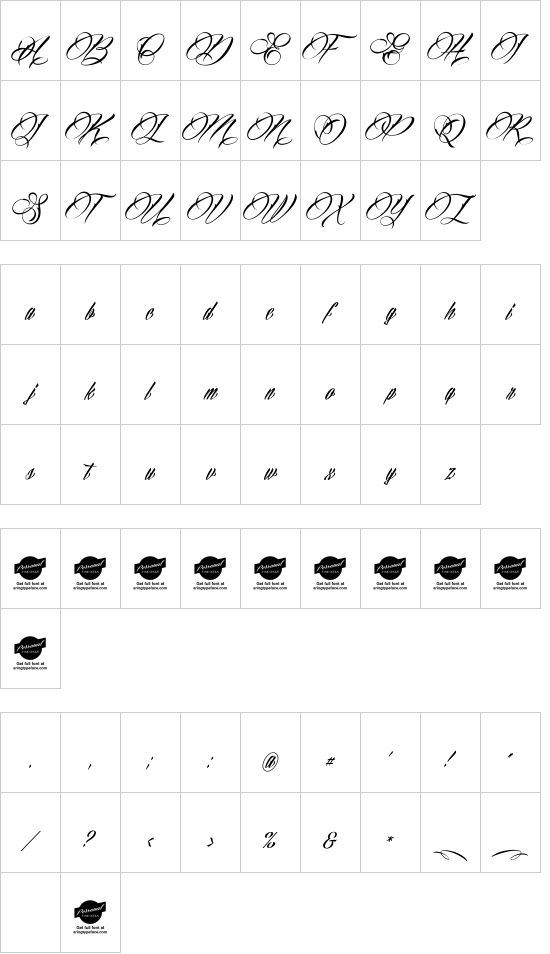
Billion Stars
About Billion Stars
Billion Stars is a flowing calligraphic tattoo font with sweeping strokes and decorative flourishes that trail off into fine points. The contrast between heavy bodies and delicate tails gives it a graceful yet bold character, equally at home as ink or ornament.
That balance works for tattoo lettering, romantic posters, jewelry branding, and elegant T-shirt designs that want flourish and feeling. Billion Stars is free to download as a TrueType file, and you can preview your own phrase to see how the sweeping tails fall before using it.